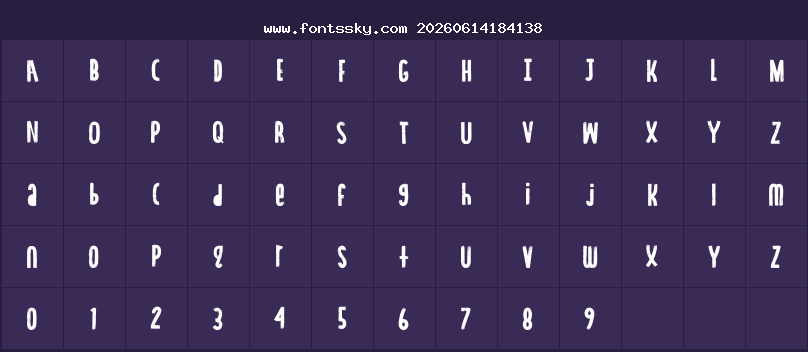
Ocean Six Preview
• Font Name: Ocean Six
• Font Style: Condensed
• Font ID: CalvinDrews@DrifterStudio: Ocean Six Condensed: 2016
• Full Font Name: Ocean Six Condensed
• PostScript Name: OceanSix-Condensed
• Character Count: 223
• Manufacturer: CalvinDrews@DrifterStudio
About Ocean Six.ttf
Ocean Six.ttf is a modern, elegant sans-serif font designed for ultimate readability and visual harmony. Perfect for branding, headlines, web design, and print materials.